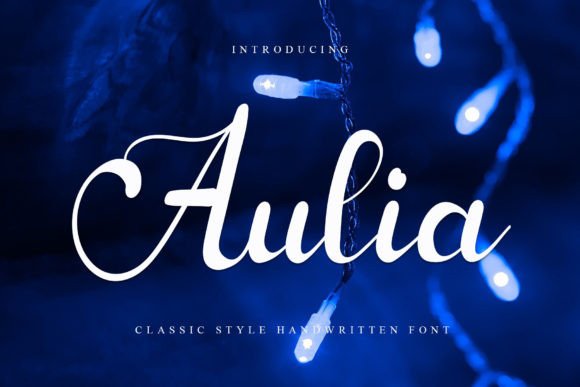
Unleash your inner creativity with Aulia Font, the ultimate script font that captures the essence of artistic expression. This remarkable font, meticulously crafted by giartstudios, transports you to a realm of imagination and inspiration.
With its distinctive curves and flowing lines, Aulia Font weaves a tale of elegance and sophistication. Dive into a world where words dance gracefully on the page, leaving an unforgettable impression on your audience.
Whether you're a seasoned designer or a budding enthusiast, Aulia Font empowers you to create captivating designs that resonate with your audience. Its versatility knows no bounds, making it the perfect choice for a wide range of projects.
Envision your wedding invitations adorned with Aulia's delicate strokes, carrying the promise of love and joy. Craft heartfelt greeting cards that convey emotions with an unparalleled finesse. Let your business cards and logos stand out with Aulia's refined charm, leaving a lasting impact on potential clients.
Aulia Font is more than just a digital asset; it's a catalyst for creativity. Ignite your passion for design and embark on a journey of endless possibilities. Embrace Aulia Font and transform your creative vision into a tangible reality.